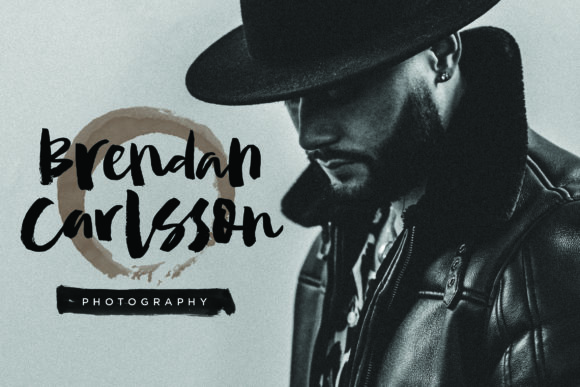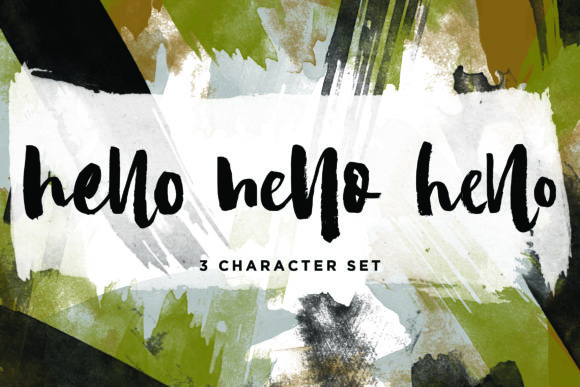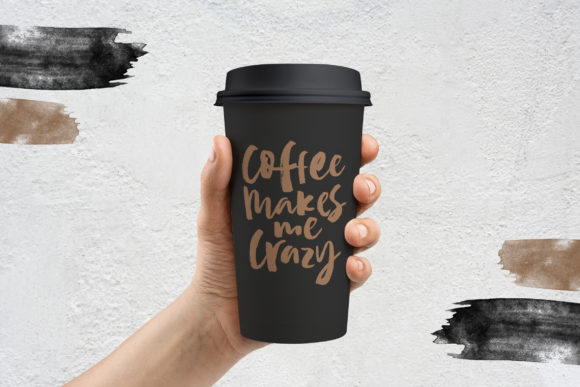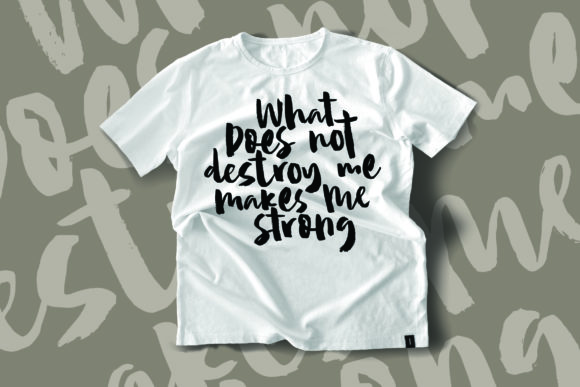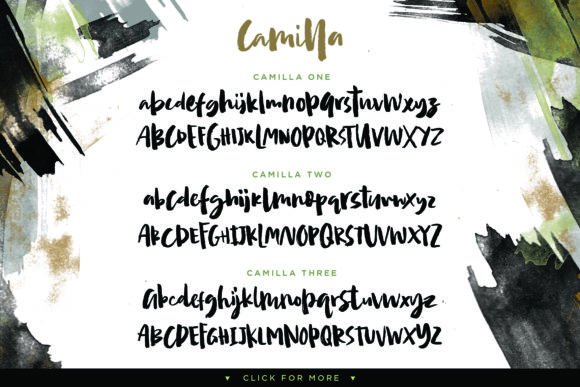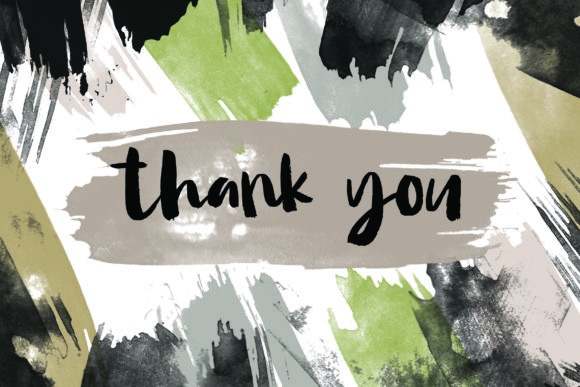
Discover the Charming Camilla Font: Elevate Your Crafts with a Modern Twist
Are you a designer or crafter looking for a font that adds a touch of elegance and modernity to your projects? Look no further than the Camilla Font. This charming and cool handwritten font is perfect for those who want to give their crafts a lovely twist. In this article, we’ll dive into the world of Camilla Font, exploring its features, benefits, and uses, as well as provide tips on how to make the most of this versatile font.
What is Camilla Font?
Camilla Font is a beautiful, handwritten font that exudes a sense of modernity and sophistication. Its unique, cursive style makes it perfect for adding a personal touch to various crafts projects, such as greeting cards, invitations, posters, and more. With its clean lines and flowing curves, Camilla Font is sure to capture the attention of your audience and leave a lasting impression.
Key Features of Camilla Font
- Handwritten style: Camilla Font boasts a charming, handwritten look that’s perfect for creating personal and engaging crafts.
- Modern feel: This font’s modern design ensures that your projects look fresh and up-to-date.
- Versatile: Camilla Font can be used for a wide range of projects, from digital designs to print materials.
- Elegant: The font’s elegant curves and lines make it perfect for projects that require a touch of sophistication.
Benefits of Using Camilla Font
So, why should you choose Camilla Font for your crafts projects? Here are just a few benefits of using this amazing font:
- Adds a personal touch: Camilla Font’s handwritten style gives your projects a personal and human touch.
- Enhances creativity: This font’s unique design inspires creativity and encourages you to think outside the box.
- Perfect for DIY projects: Camilla Font is ideal for DIY enthusiasts and crafters who want to add a professional touch to their projects.
- Compatible with various designs: This font can be paired with a wide range of design styles, from minimalist to elaborate.
Tips for Using Camilla Font
Now that you know more about Camilla Font, here are some tips on how to make the most of this amazing font:
- Pair with bold fonts: Combine Camilla Font with bold, sans-serif fonts for a striking contrast.
- Experiment with colors: Try pairing Camilla Font with bright, bold colors to add a pop of personality to your projects.
- Use for headings and titles: Camilla Font is perfect for headings and titles, adding a touch of elegance to your projects.
- Don’t be afraid to get creative: Camilla Font is versatile, so don’t be afraid to experiment and try new things!
Who Can Benefit from Camilla Font?
Camilla Font is perfect for a wide range of designers, crafters, and DIY enthusiasts, including:
- Graphic designers: Add a touch of elegance to your designs with Camilla Font.
- Crafters: Use Camilla Font to create beautiful, professional-looking crafts.
- DIY enthusiasts: Take your DIY projects to the next level with Camilla Font.
- Small business owners: Use Camilla Font to create stunning branding materials, such as logos and brochures.
| Font Name | Camilla Font |
| Author | Typehand Studio |
In conclusion, Camilla Font is a charming and cool handwritten font that’s perfect for adding a modern twist to your crafts projects. With its elegant design, versatility, and ease of use, Camilla Font is sure to become a favorite among designers, crafters, and DIY enthusiasts. So why wait? Download Camilla Font today and start creating stunning crafts that capture the attention of your audience!